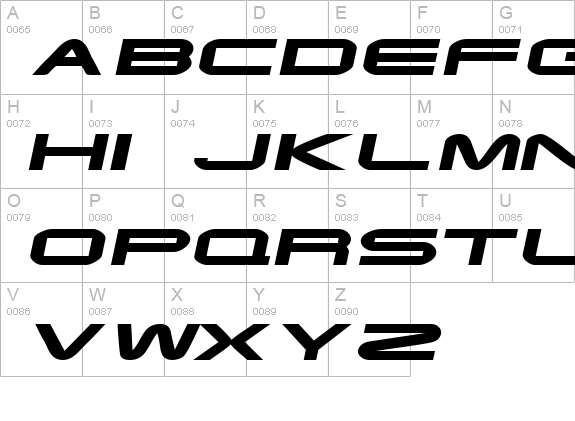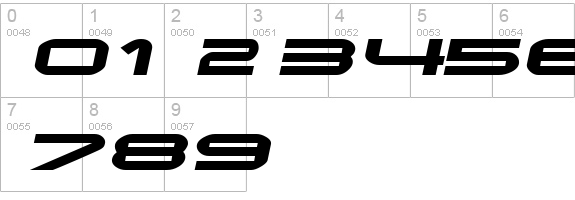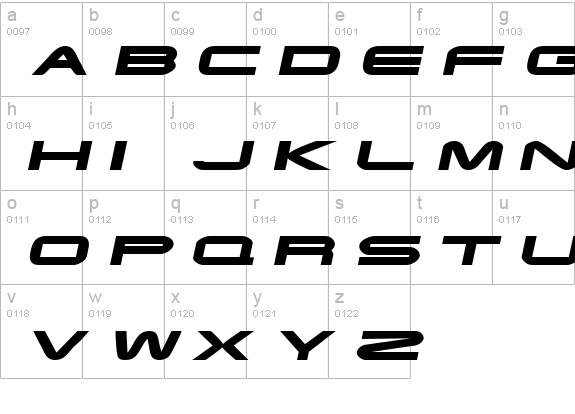
EndzoneExtended Oblique Font Details
EndzoneExtended Oblique is a distinctive, italic variant in the EndzoneExtended typeface family \xE2\x80\x94 well suited to design and typography projects.
EndzoneExtended Oblique font is a sleek and modern typeface that exudes elegance and sophistication. Its unique slanted design adds a touch of dynamism and flair to any project, making it perfect for headings, logos, and branding materials. The sharp angles and clean lines of this font give it a contemporary aesthetic that is sure to make a statement. What's even better is that EndzoneExtended Oblique font is completely free to download at FontsMarket.com. This means you can add a touch of style to your designs without breaking the bank. Don't miss out on this fantastic opportunity to elevate your creations with this eye-catching font. Download EndzoneExtended Oblique today and let your creativity shine!